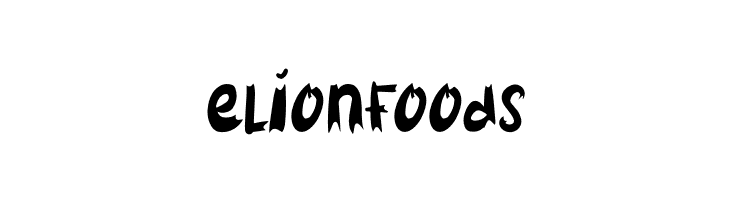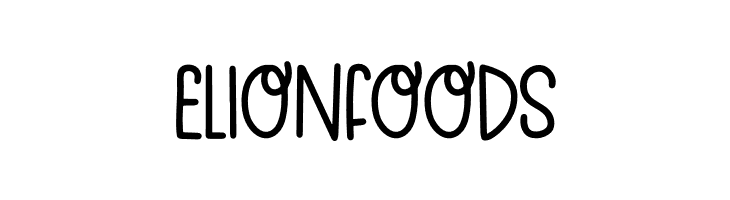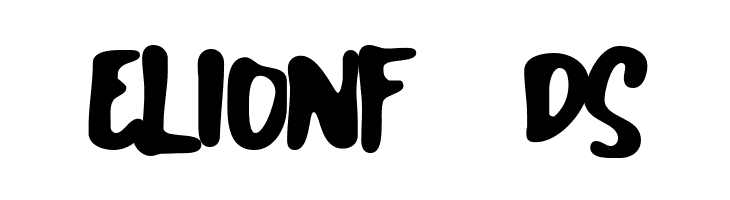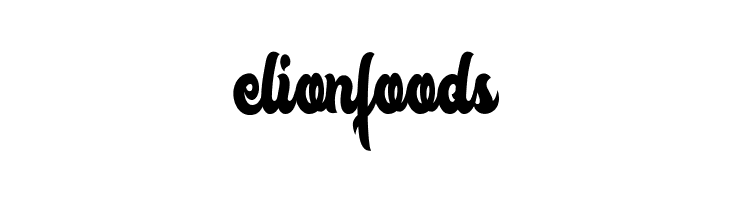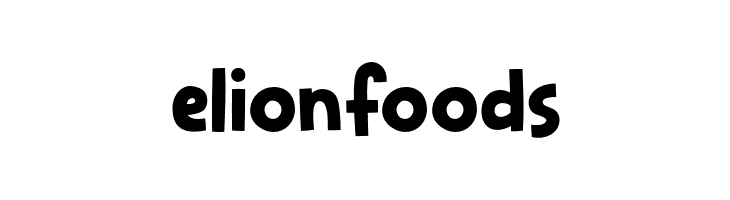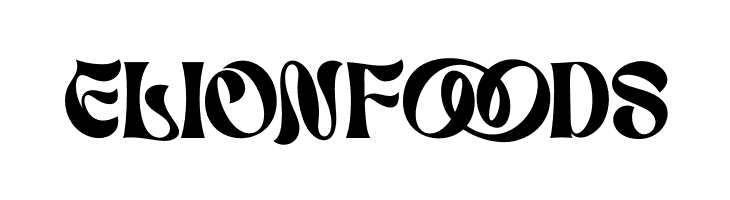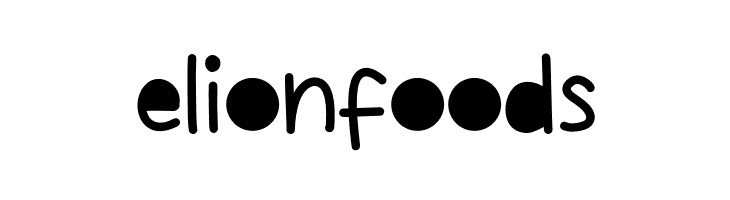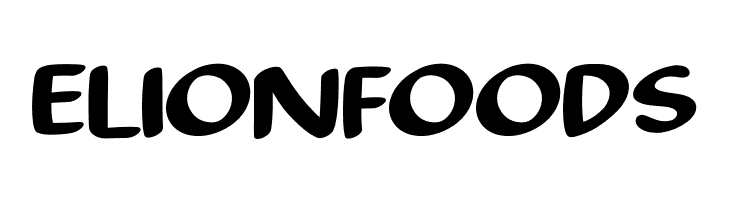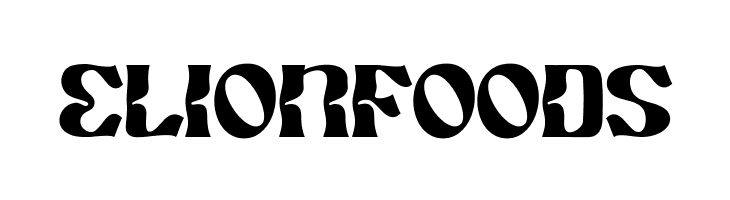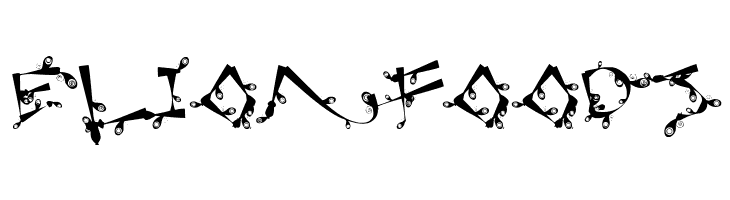
A playful, casual handwritten font with smooth, flowing strokes.
A modern, loop-based font with interconnected circular designs.
A playful, loop-themed font with high contrast and bold design.
A bold, playful, hand-drawn font with a doodle-like style.
A playful, bold font with rounded, loop-like terminals.
A futuristic, geometric font with wide, looped letterforms.
A geometric, loopy font with interconnected lines and a modern, playful style.
A bold, decorative font with intricate loops and swirls, resembling abstract art.
A geometric, loopy font with bold, interconnected lines and a modern flair.
A playful, bold font with exaggerated curves and a hand-drawn feel.
A bold, high-contrast font with elongated vertical strokes and sharp serifs.
A bold, brushstroke-style font with dynamic and expressive characters.
A bold, handwritten font with a brush-like, expressive style.
A bold, graffiti-inspired font with a playful, rebellious edge.
A casual, textured handwritten font with a playful and informal style.
A whimsical, handwritten font with fluid strokes and a casual elegance.
A playful, rounded font with smooth curves and a friendly appearance.
A classic blackletter font with ornate and intricate letterforms.
A bold, geometric sans-serif font with a modern and minimalistic design.
A bold, playful font with a hand-drawn, whimsical style.
A playful, hand-drawn font with a casual and approachable style.
A decorative font with geometric and diamond-shaped embellishments.
A modern serif typeface with high contrast and elegant serifs.
A bold, classic serif font with medium contrast and elegant curves.
A bold, italic serif font with a modern yet elegant style.
An elegant serif font with smooth italic styling and classic proportions.
A modern serif font with medium contrast and a touch of calligraphic elegance.
Elaborate decorative font with ornate Victorian-inspired details.
A bold, angular font with a Gothic-inspired, modern aesthetic.
A bold, angular font with a geometric, three-dimensional style.